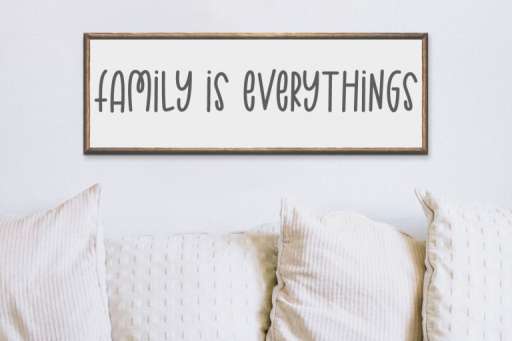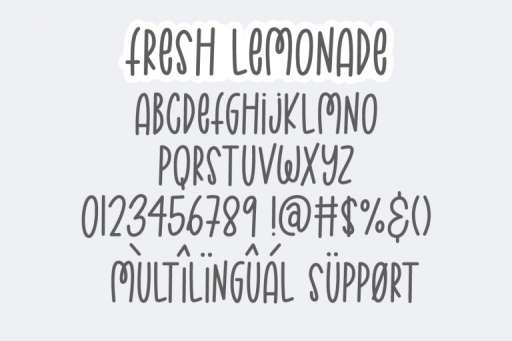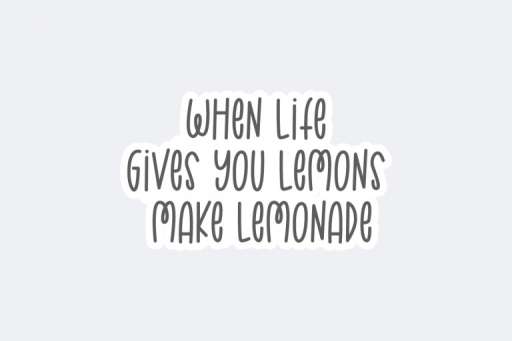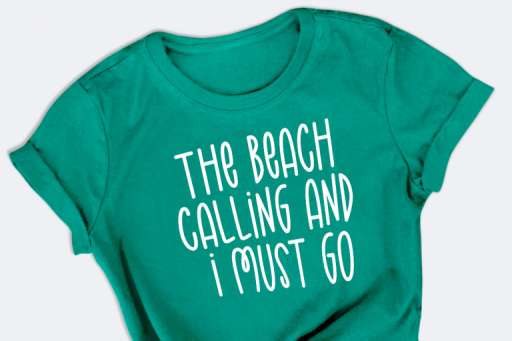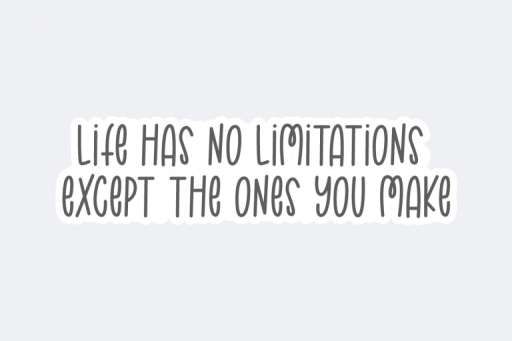
Fresh Lemonade – Sweet Font
Fresh Lemonade is monoline style, easy to read, and unique. They work perfectly for quotes, blog, invitation, logos, apparel playful design, t-shirt, kids design, SVG design, advertising for fun, stationery, and more!
Fresh Lemonade Features :
- Basic Latin A-Z and a-z
- Numbers and punctuation
- Multilingual